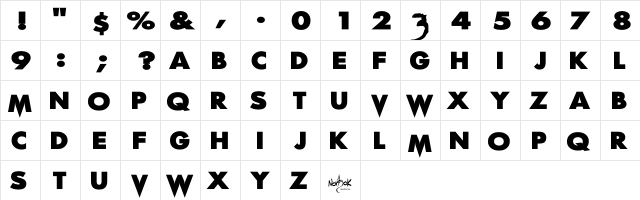
Scream Real Regular
| Designer | Thomas W.Otto |
Design Context for Scream Real Typeface
Scream Real offers clean, dependable letterforms without strong stylistic allegiance, making it a practical choice for designers who need flexibility.